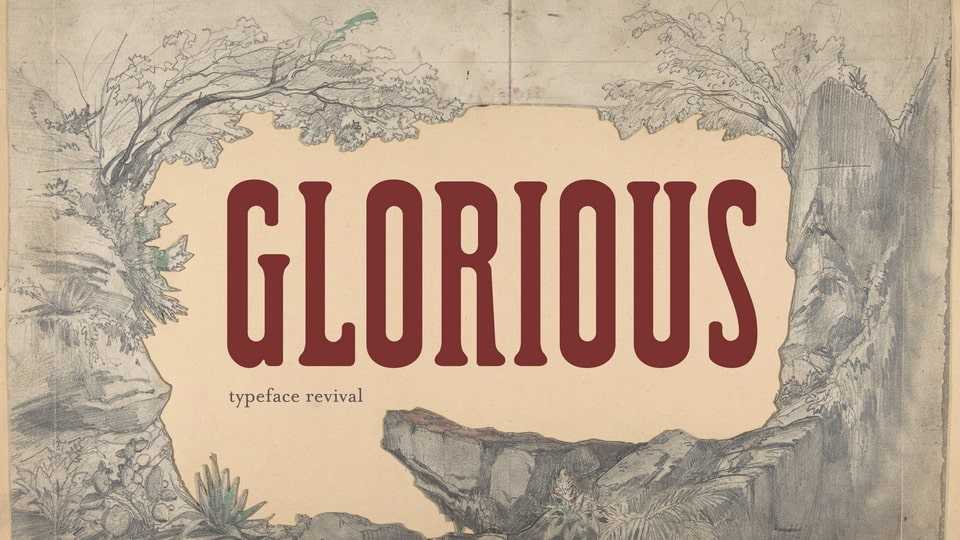
Download Glorious font, a vintage typeface revival that pays homage to the exquisite beauty of the Art Nouveau typography. Glorious font features a sophisticated and graceful design, reminiscent of the lettering that adorned Art Nouveau posters and drawings.
Designer: Ella Andrade